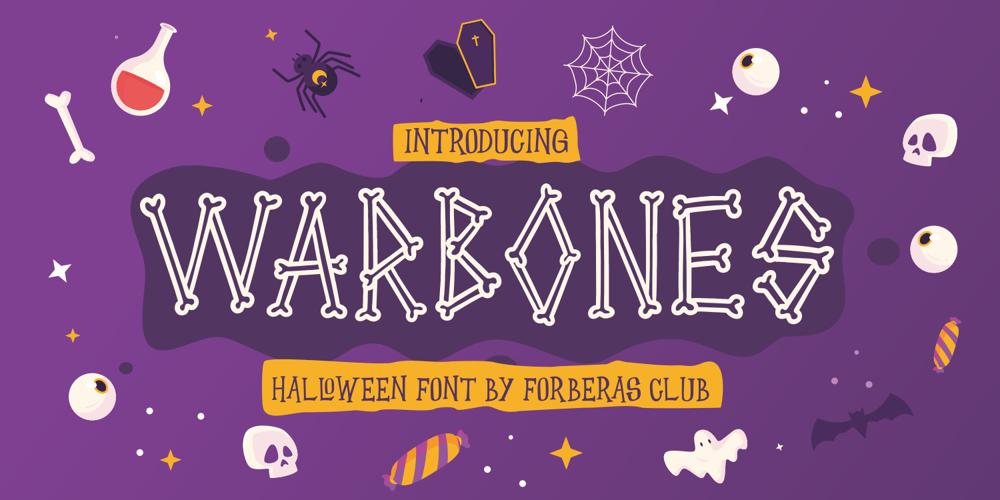
Warbones Font Family was designed by ANGGI HERMAWAN and published by Forberas Club. Warbones contains 1 styles and family package options. Introducing Warbones by Forberas, yet playful but still serious. You can use this as decorative material for your upcoming project.